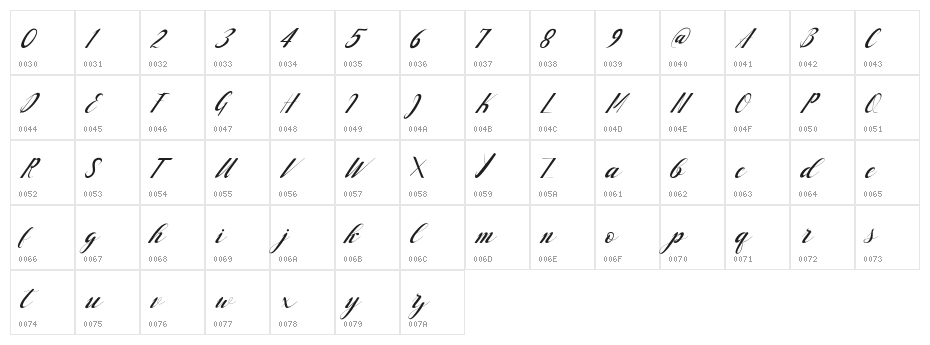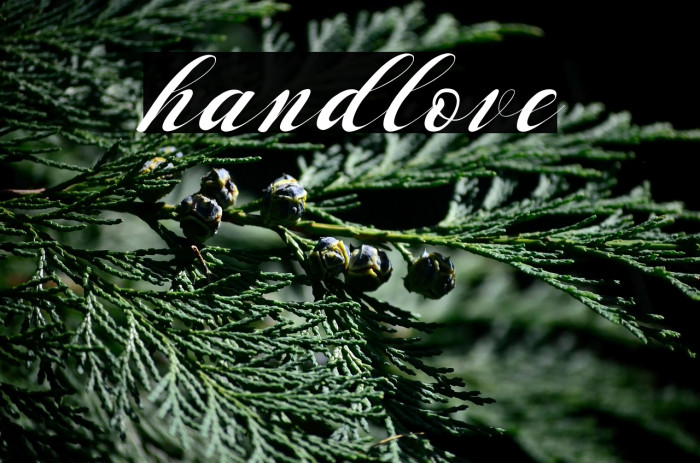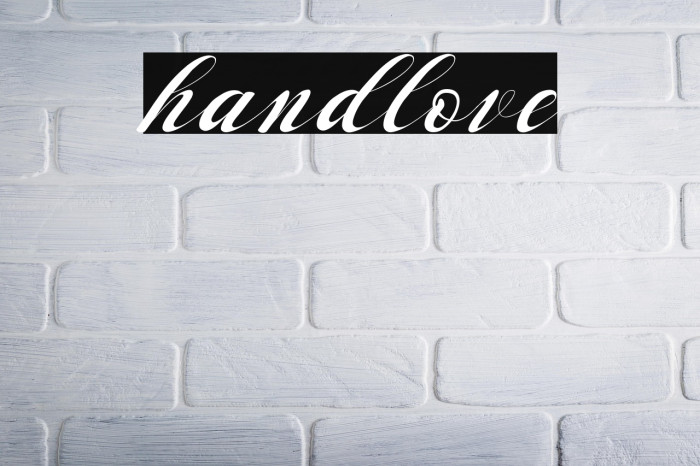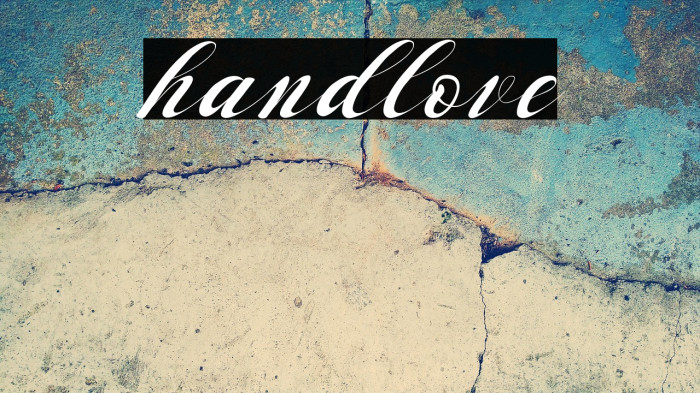
handlove Font
handlove Description
This font exudes elegance and sophistication with its flowing, cursive style. The letters are interconnected, creating a seamless and fluid appearance that mimics the natural movement of handwriting. The strokes are varied, with some characters featuring thin, delicate lines while others are bold and pronounced, adding a dynamic contrast. The uppercase letters are particularly ornate, with flourishes that extend beyond the baseline, giving them a dramatic flair. The lowercase letters maintain a consistent rhythm, enhancing readability despite the decorative nature. Overall, this font is a beautiful blend of artistry and functionality, perfect for projects that require a touch of elegance.
| Proposed Projects | Ideal for wedding invitations, elegant branding, personal stationery, and artistic posters. |